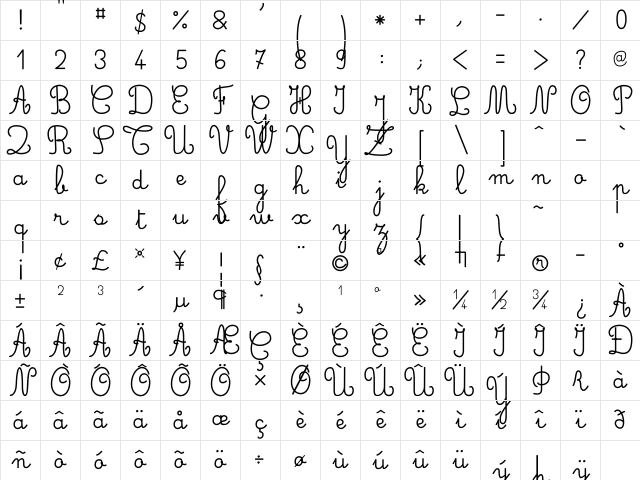
SimpleRonde Regular Free Font
SimpleRonde Regular
Design Context for SimpleRonde
SimpleRonde is a composed and adaptable typeface that performs quietly and consistently across a wide range of design contexts.